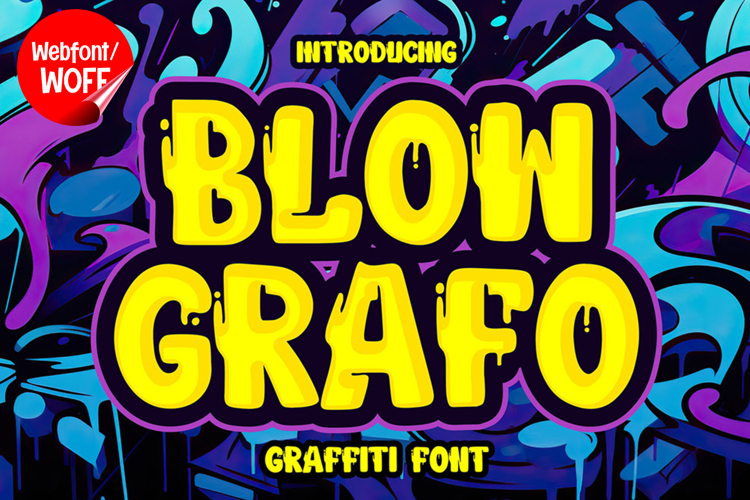
Blow Grafo | Unique Dripping Graffiti Webfont
Blow Grafo is a unique dripping graffiti webfont designed to bring bold character and raw street energy into modern website design. Inspired by spray paint techniques and liquid drip effects, this font combines strong letterforms with fluid details that create a dynamic and expressive visual style. It is an excellent choice for projects that need a standout urban identity with a creative and edgy tone.
Blow Grafo features a complete set of uppercase characters designed with bold graffiti shapes and distinctive dripping elements. The thick strokes give each letter a solid presence, while the drip effects add motion and texture that enhance the overall design. These letterforms are ideal for headlines, banners, hero sections, and featured content where attention-grabbing typography is essential.
In addition to letters, the font includes numbers and punctuation, allowing flexible usage across various parts of a website. It works well for promotional text, event announcements, pricing displays, and navigation highlights. Each character maintains a consistent dripping graffiti style, ensuring a cohesive and unified visual identity throughout the layout.
With multilingual support, Blow Grafo includes a wide range of accented characters, making it suitable for international websites and global audiences. This allows content to be displayed clearly across different languages while preserving the unique graffiti aesthetic.
The dripping graffiti style of Blow Grafo makes it especially suitable for urban-themed websites, streetwear brands, music platforms, gaming interfaces, and creative portfolios. Its fluid and expressive design adds personality and intensity, helping websites stand out in competitive digital spaces. The unique drip details create a sense of movement that enhances visual engagement.
Despite its bold and decorative appearance, Blow Grafo is designed with readability in mind. The spacing and structure of each character are carefully balanced to ensure clarity, particularly in display sizes. This makes it effective for impactful headings and short content elements where both style and usability are important.
Blow Grafo is a webfont that combines graffiti aesthetics with dripping effects and modern digital functionality. Its bold shapes, fluid details, and urban influence create a distinctive typographic presence that enhances website design. For projects that require strong visual impact, creative expression, and a unique street-inspired style, Blow Grafo offers a powerful and engaging solution.